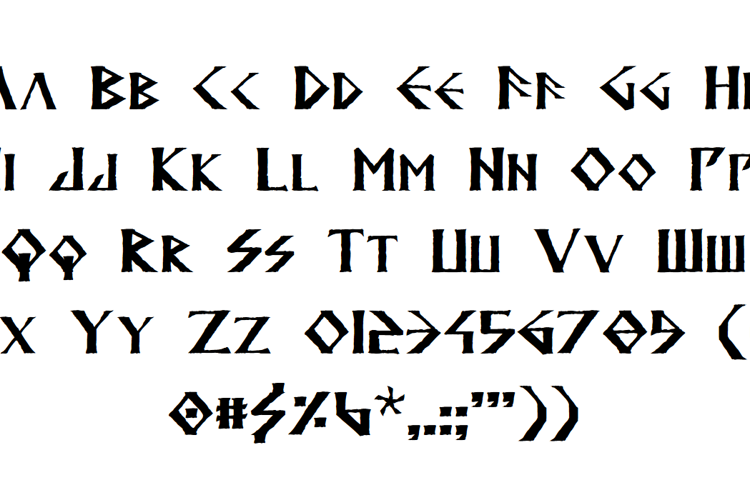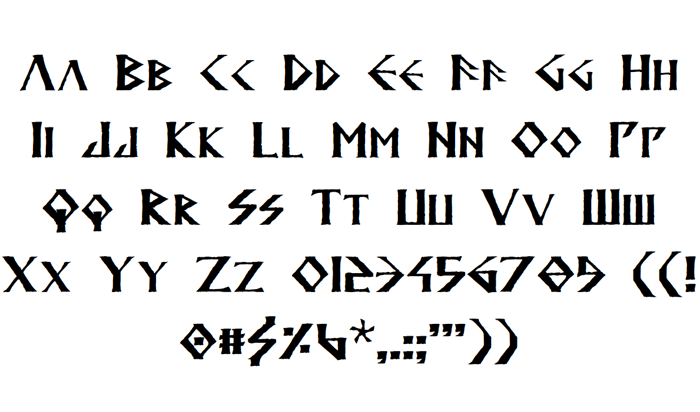
Anglodavek Font
About Anglodavek Font
More info from Pixel Sagas
AngloDavek is an English-readable version of the fantasy 'Davek runes' script. The font is heavily based on classic "Futhark" style runes and meant to envoke a dwarvish feel. Includes full alphabet, extended punctuation, euro. Includes regular bold, italic, and bold-italic faces.